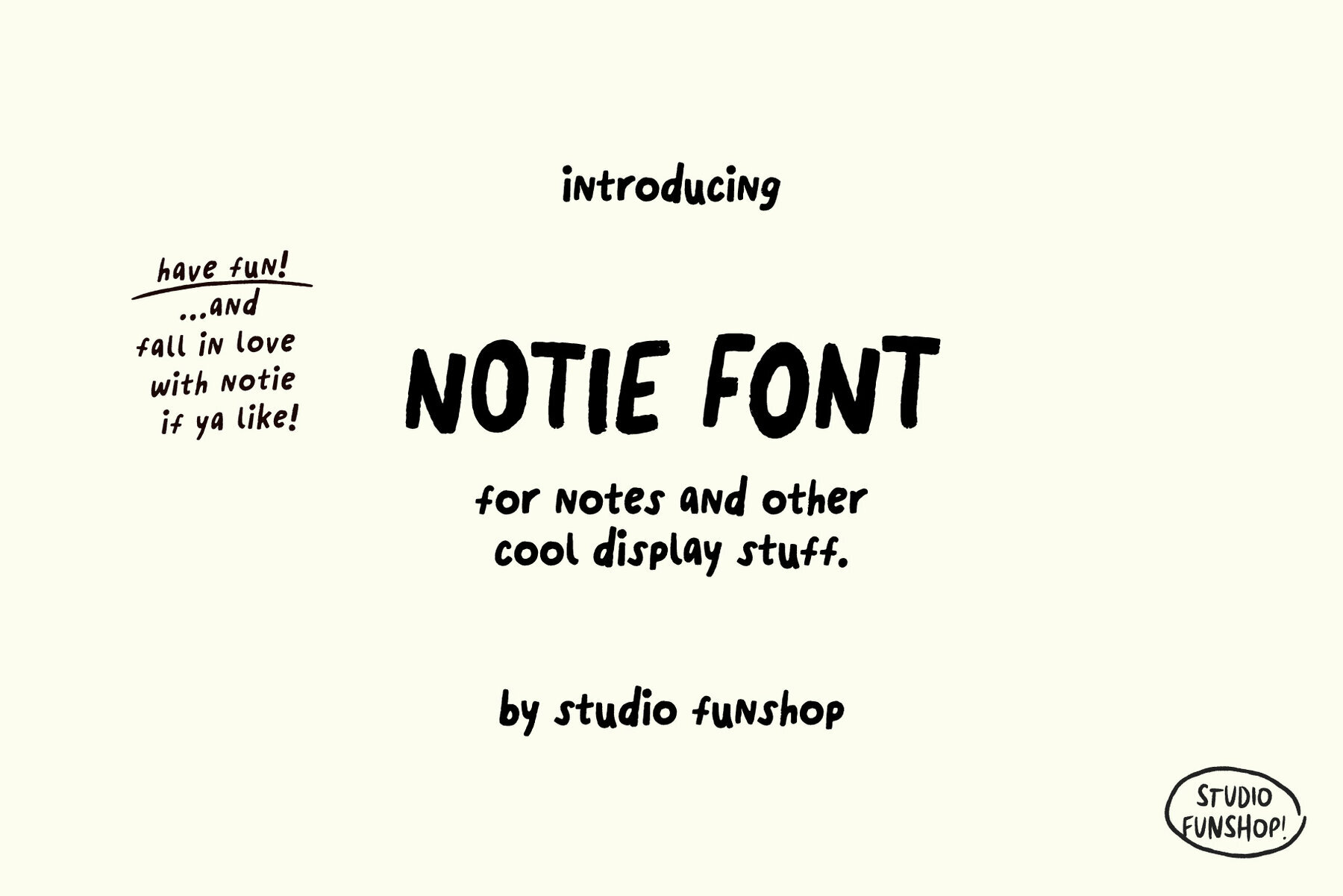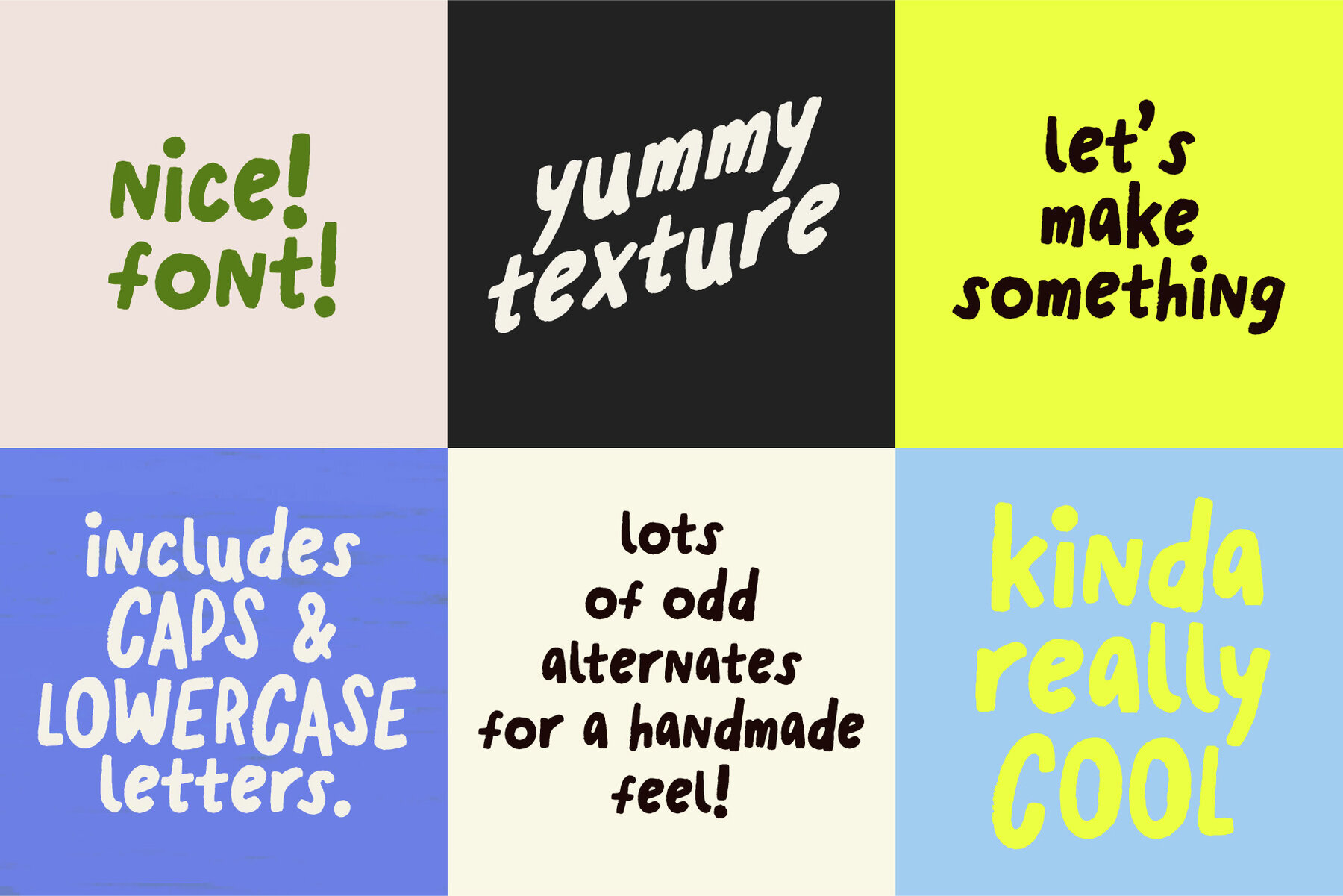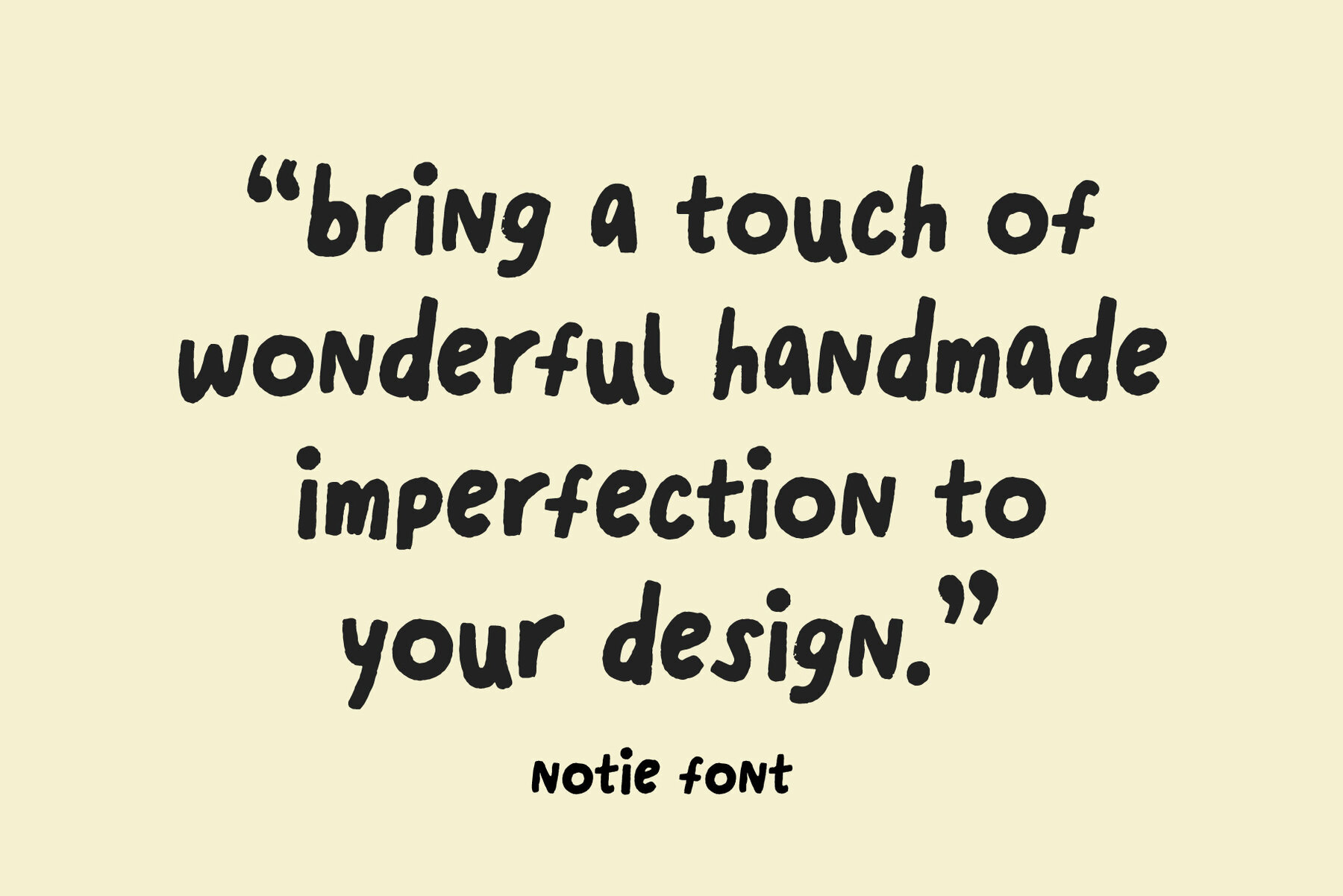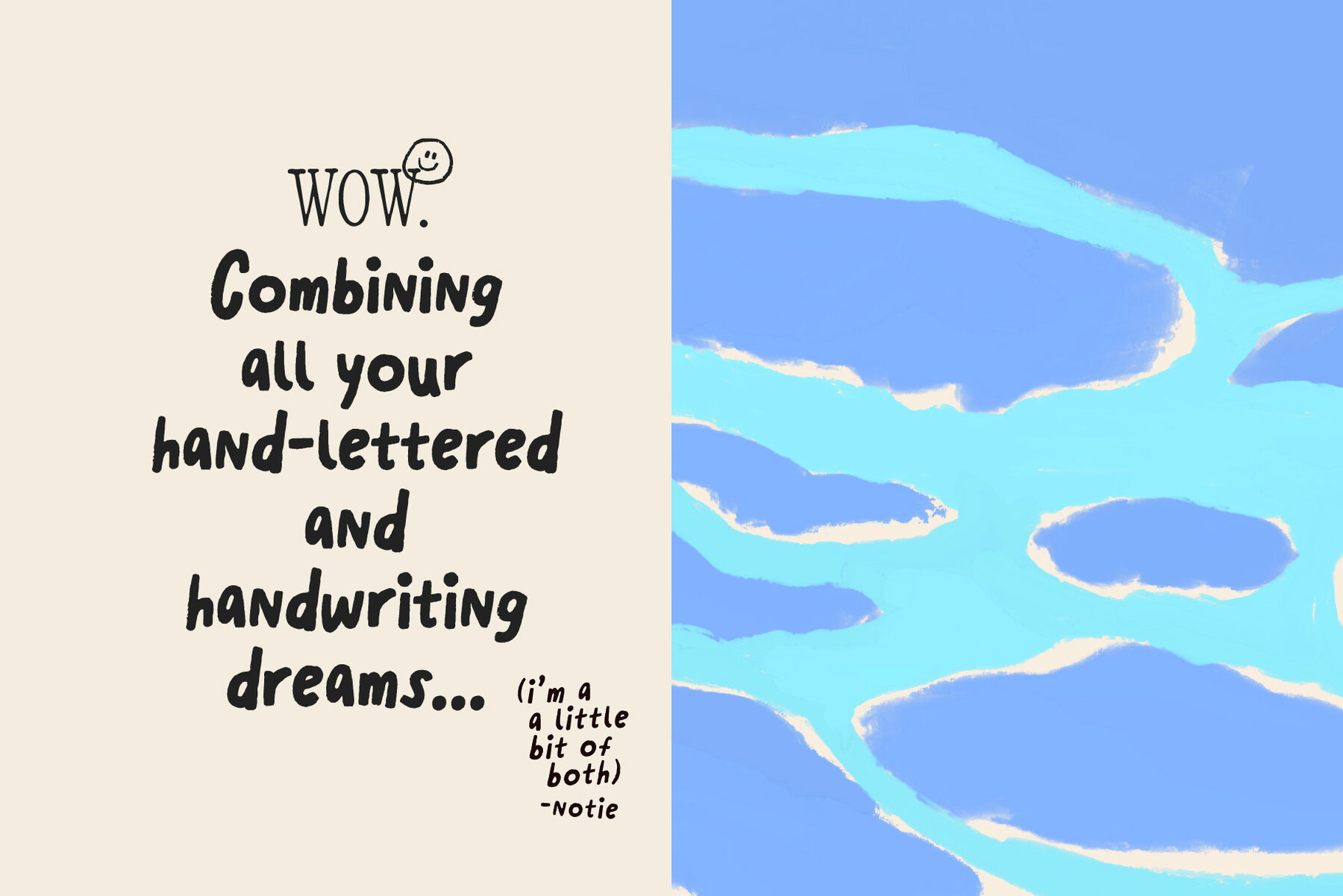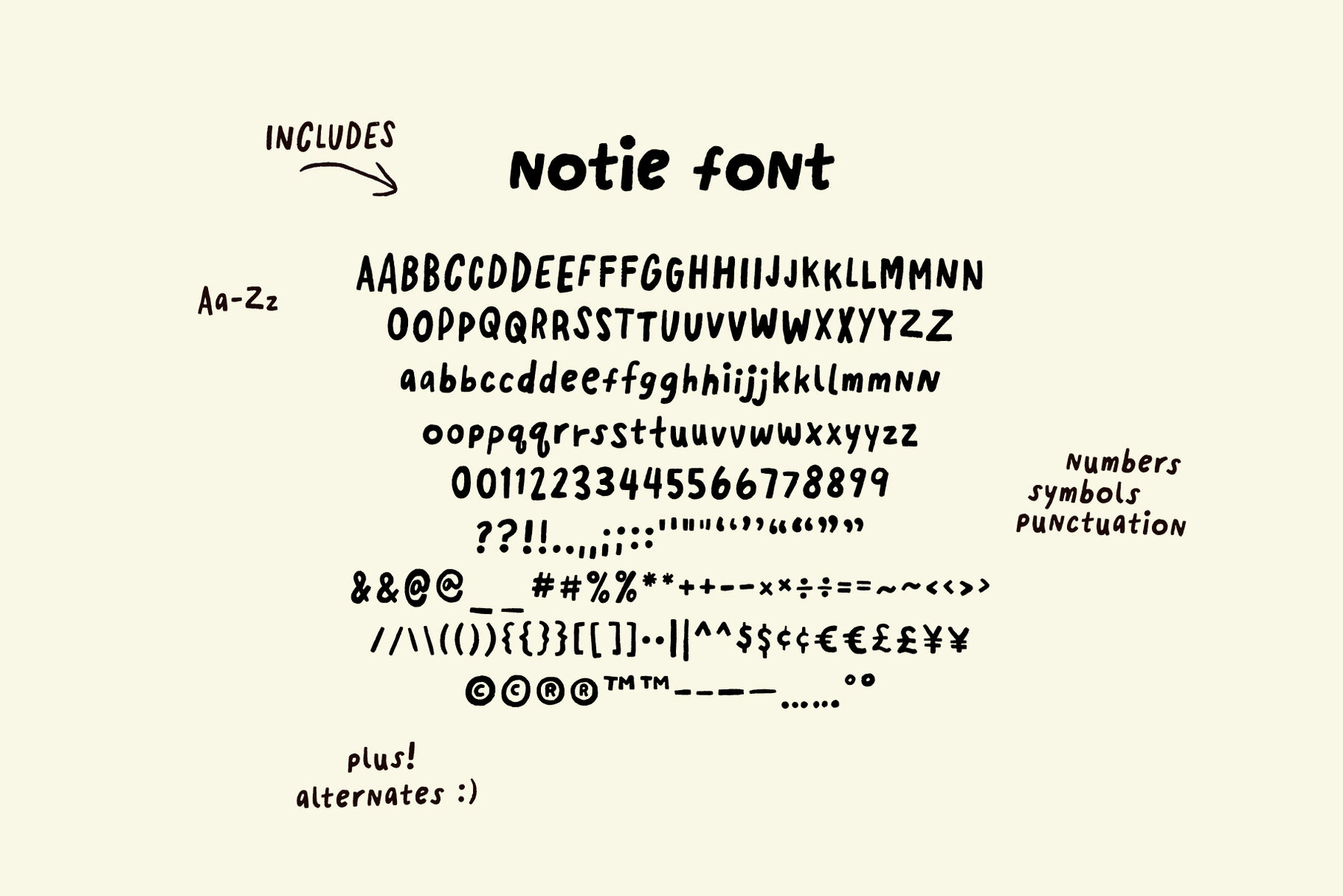
Notie Font
Hello Notie
Step into the world of unique lettering with Notie, an engaging handwriting font presented by Studio Funshop. Delectably crafted for creative novices and professionals alike, this font speaks to an audience of graphic designers and marketing firms eager for something different with a human touch. Notie is unlike your usual font - it is a delightful melange of personality and functionality. It is specifically curated for effortless note-making, spellbinding headline crafting, and infusing myriad creations with a refreshing pizzazz. Notie shines most in enhancements of display aesthetics, bringing ordinary text to life with its rich texture and unmistakable identity. What sets Notie apart is its remarkable adaptability. The inclusion of alternates gives the font extra handmade goodness, adjusting to various themes and purposes with enviable ease. Dive into the world of Notie and discover a wealth of creative opportunities at your fingertips. In a nutshell, Notie is a testimony to Studio Funshop's mastery of creative design. It is a handwriting font like no other - wonderfully unique, incredibly versatile and undeniably captivating. Let Notie transform your display creations into marvelous works of art.Discover Notie, a Freshly Crafted Handwriting Font for Vibrant Display Creations